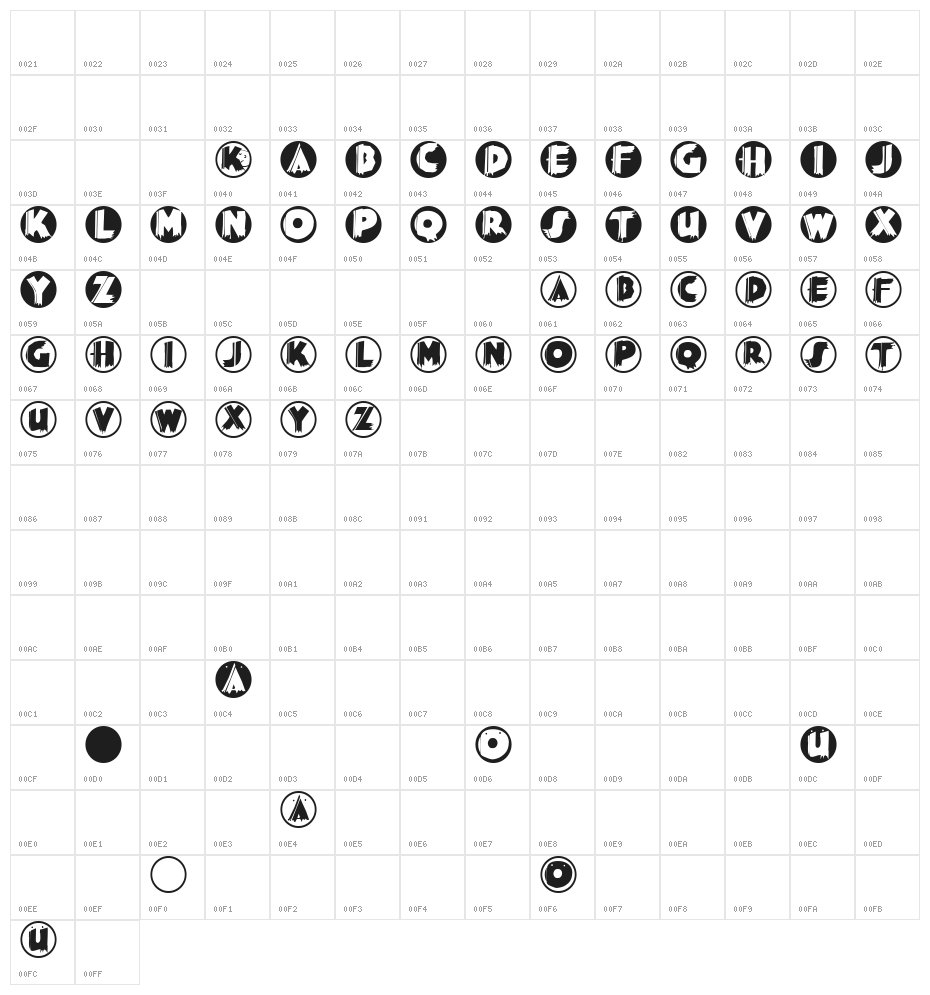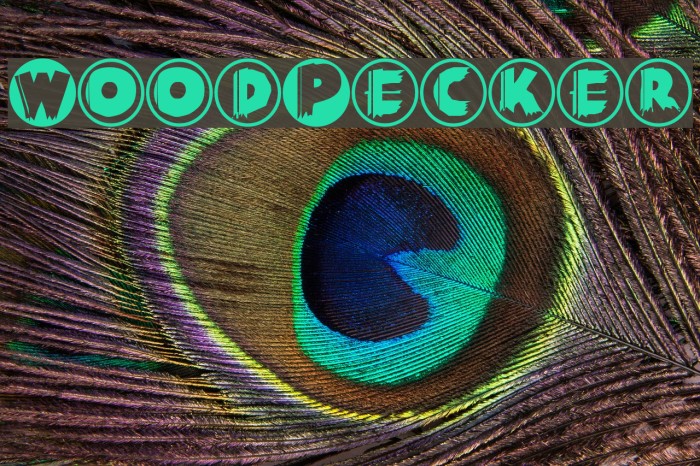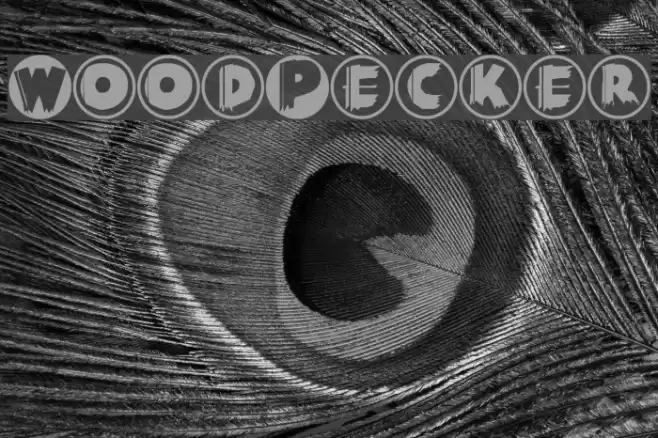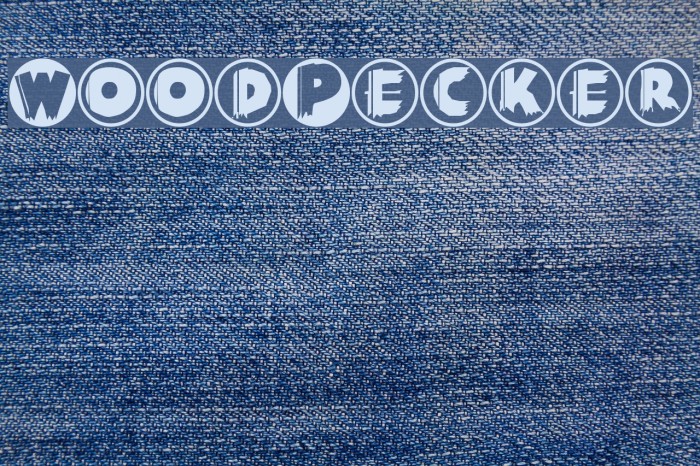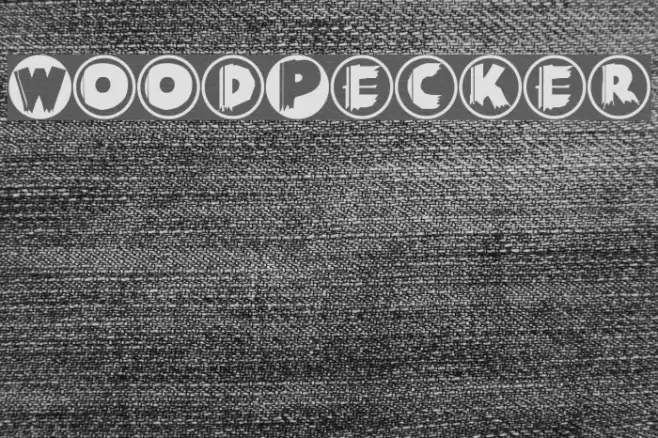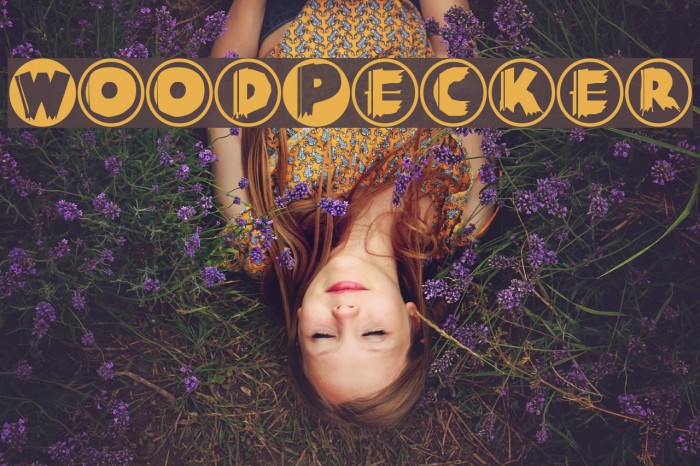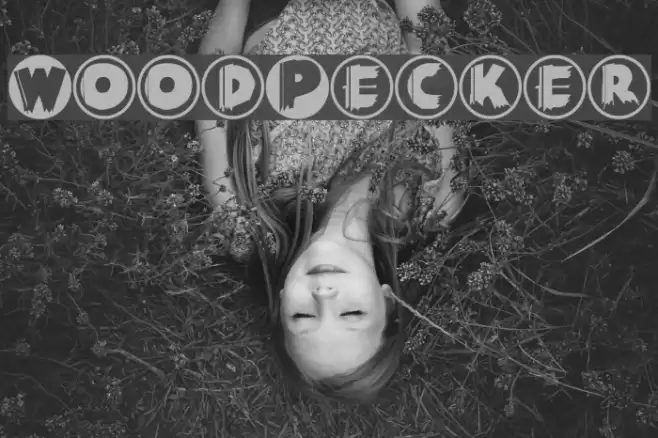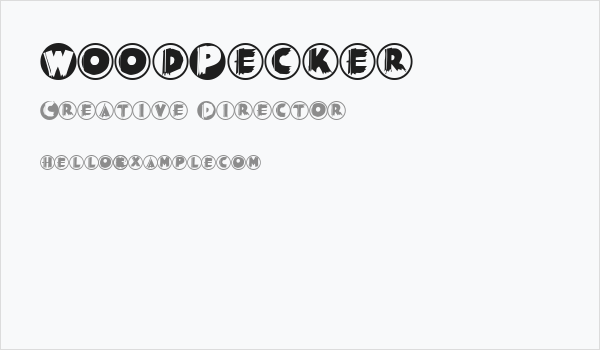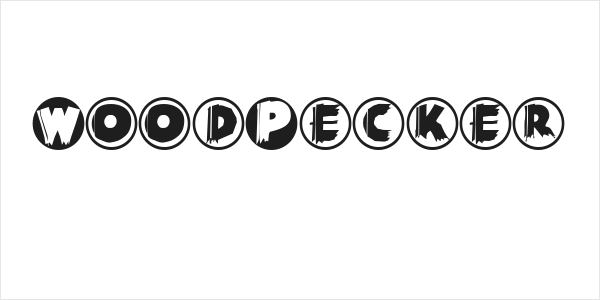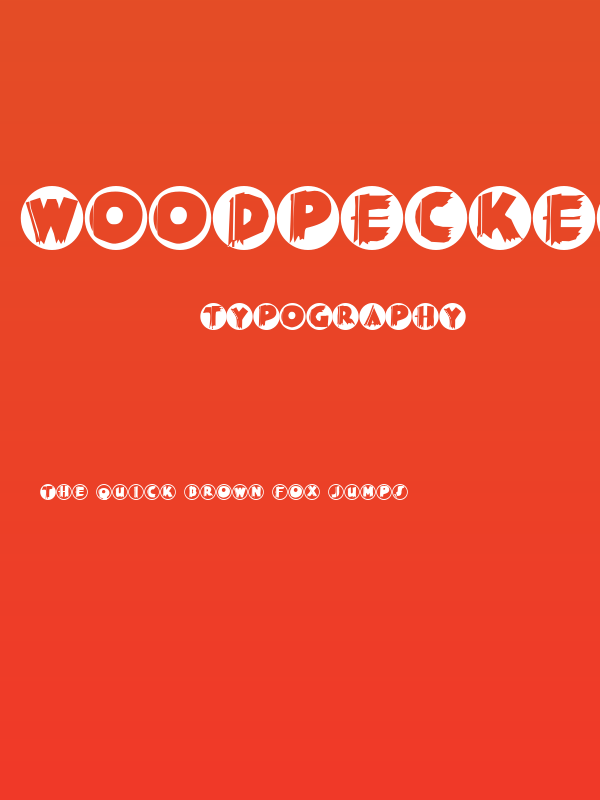
WoodPecker Font
WoodPecker Description
This font features a bold and striking design with each letter encapsulated in a circular form. The characters are designed with a distressed, wood-like texture that gives a rugged and natural appearance. The uppercase letters are prominent and uniform in size, creating a cohesive look across the alphabet. The font's unique style is reminiscent of woodcut or stencil art, making it stand out with its artistic flair. The circular background adds a layer of depth and contrast, enhancing the visibility of each character. This font is ideal for projects that require a bold statement or an organic, rustic feel.
| Use Case | Logos, Posters, Branding |
| Proposed Projects | Perfect for logos, posters, branding, and any design needing a rustic or artistic touch. |